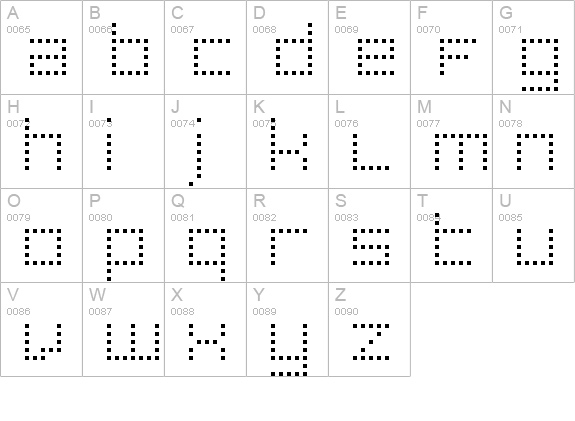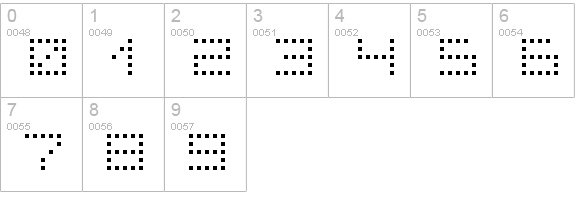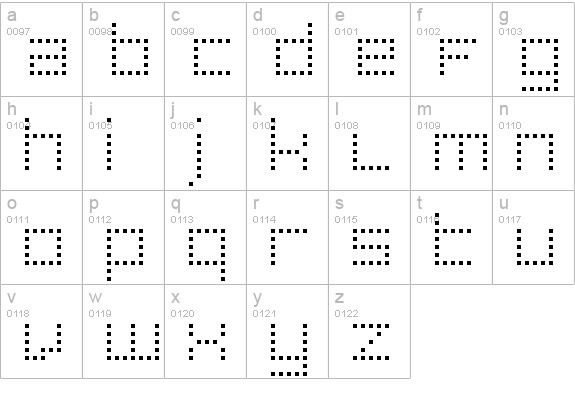
Superpoint Square Font is a modern and stylish typeface that exudes a sense of geometric precision and contemporary flair. With its clean lines and sharp edges, this font is perfect for creating eye-catching designs that demand attention. The square shapes add a unique touch to any project, giving it a bold and distinct look. What makes Superpoint Square Font even more appealing is that it is available for free download at FontsMarket.com. This means you can easily access this versatile font and use it in a wide range of projects without any cost involved. Whether you're designing a logo, poster, website, or any other creative endeavor, Superpoint Square Font is sure to make a statement and elevate your work to the next level. Download it today and unleash your creativity with this stunning typeface.